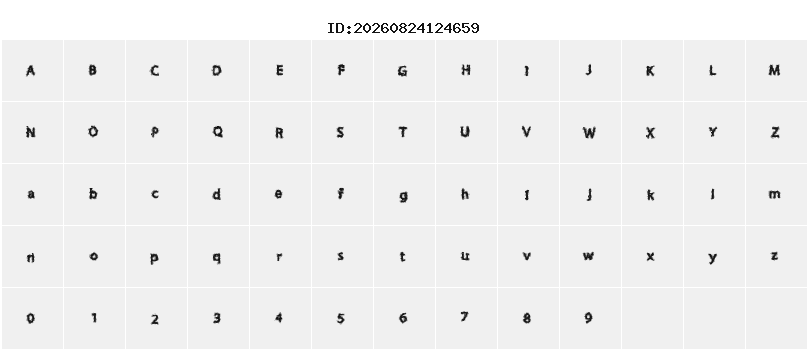
• Font Name: SafePaper
• Font ID: SafePaper:Version 1.00
• Full Font Name: SafePaper
• Version: Version 1.00 February 20, 2013, initial release
• PostScript Name: SafePaper
• Character Count: 99
• Designer: Max Infeld
• Manufacturer: Xerographer Fonts
• Description: This font at Xerographer Studios chico,CA
About SafePaper.ttf
SafePaper.ttf is a modern, elegant sans-serif font designed for ultimate readability and visual harmony. Perfect for branding, headlines, web design, and print materials.